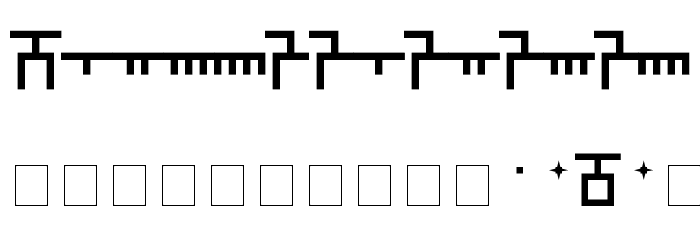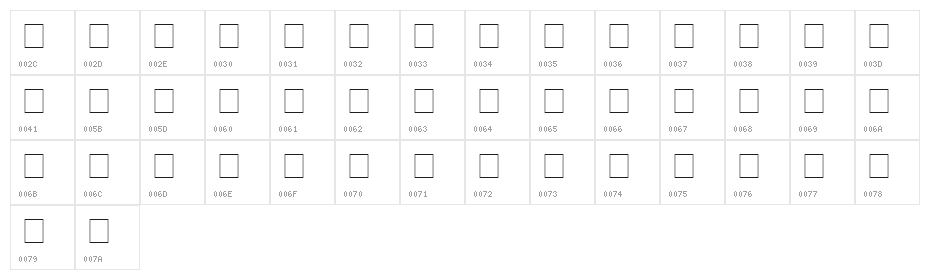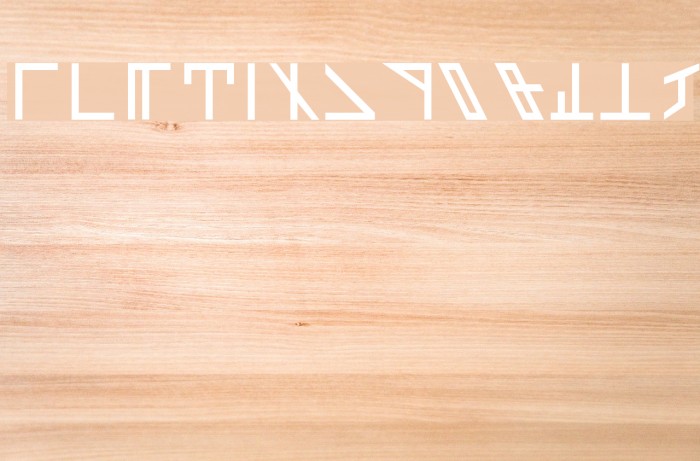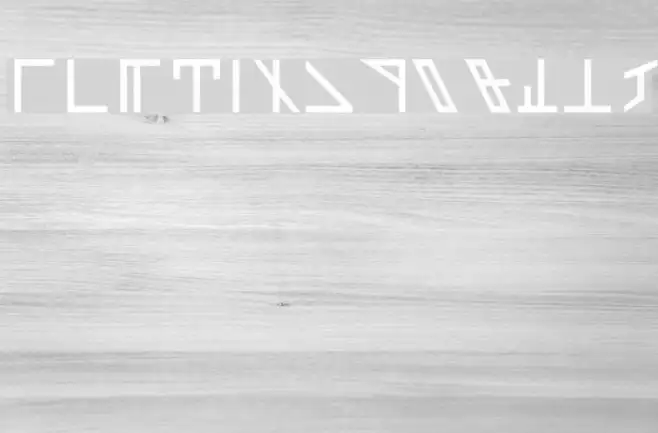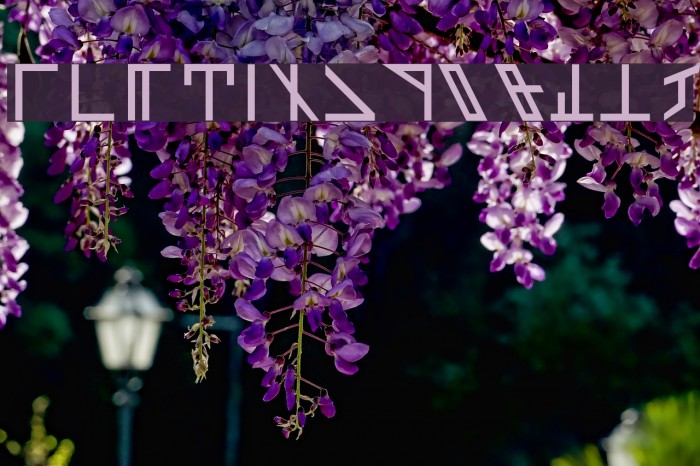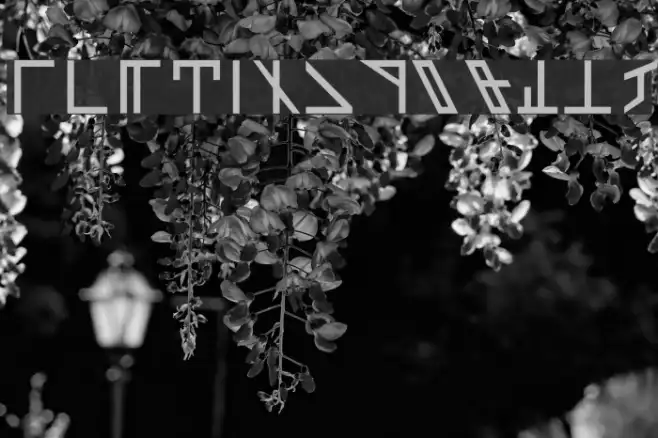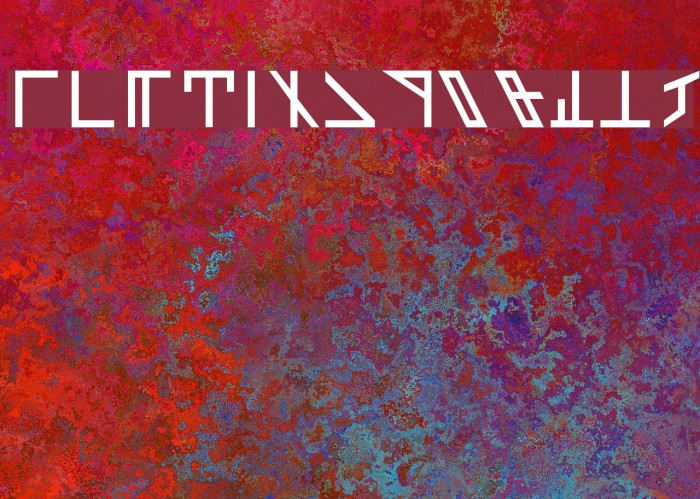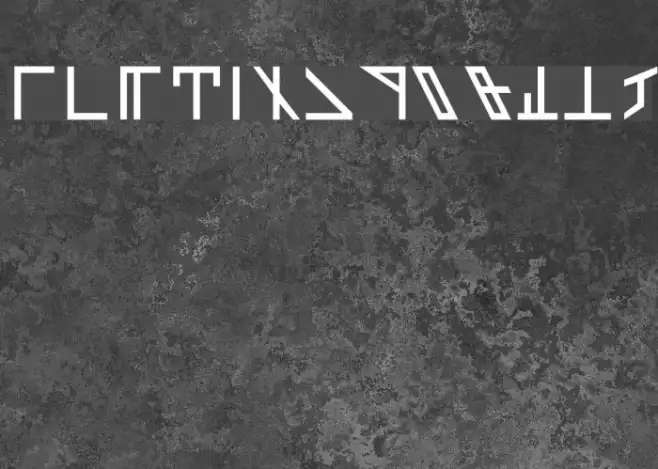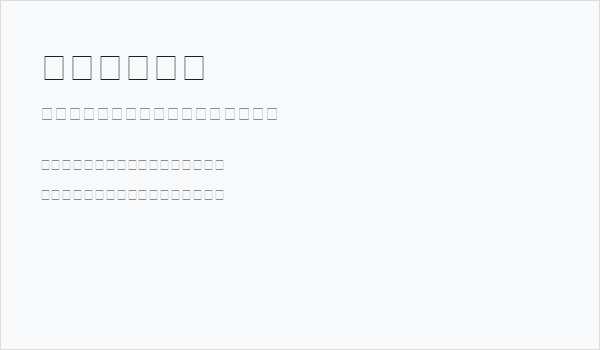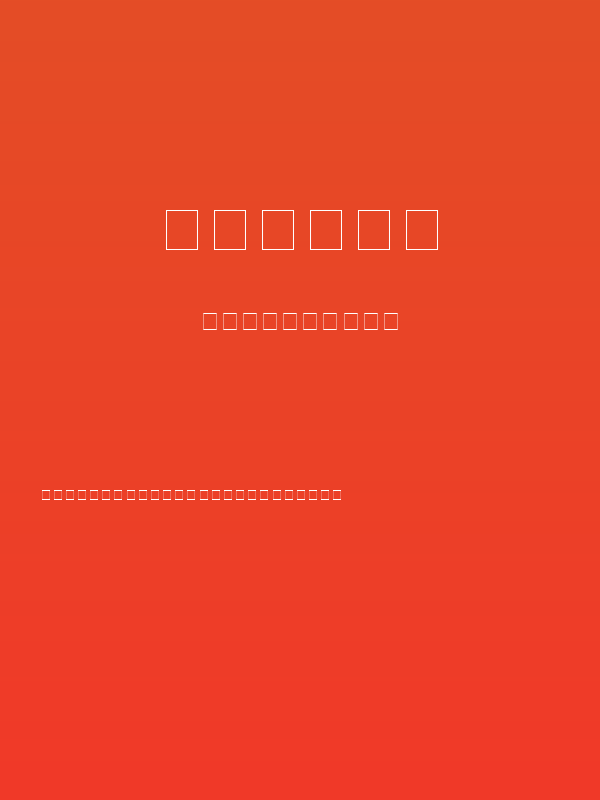
Dethek Font
Dethek Description
This font is inspired by ancient runic alphabets, featuring angular and geometric shapes that evoke a sense of mystery and antiquity. The characters are composed of straight lines and sharp angles, giving them a distinct and bold appearance. The overall design is reminiscent of inscriptions found on ancient stones or artifacts, making it ideal for projects that require a historical or fantasy theme. The spacing between characters is consistent, ensuring readability while maintaining the unique aesthetic. This font is perfect for creating titles, logos, or decorative elements that need to stand out with a touch of the arcane.